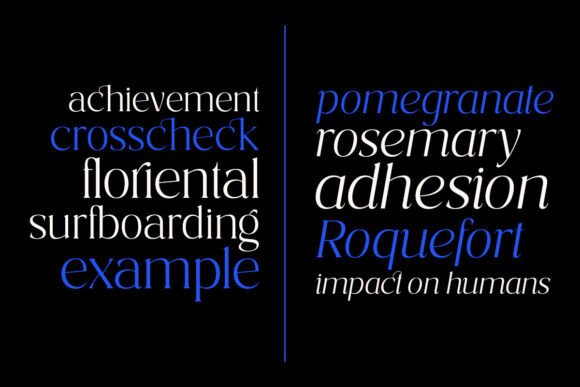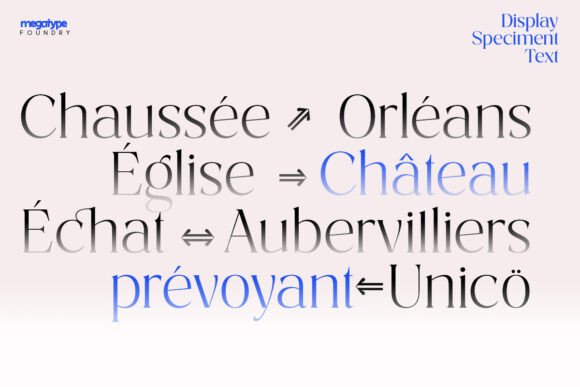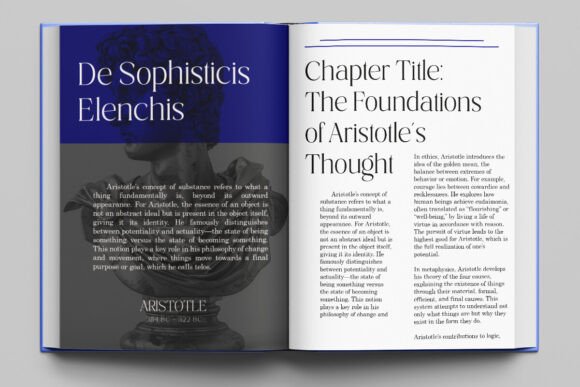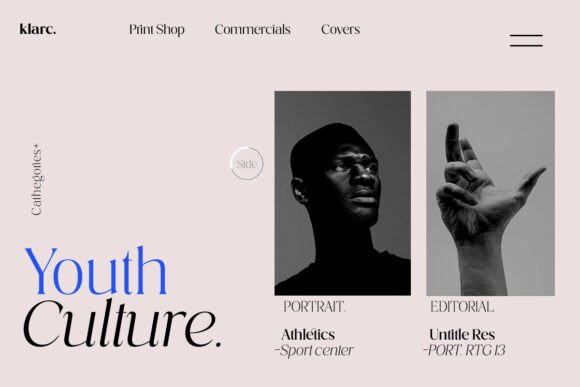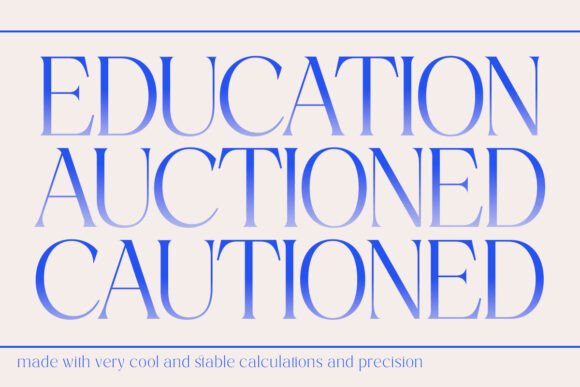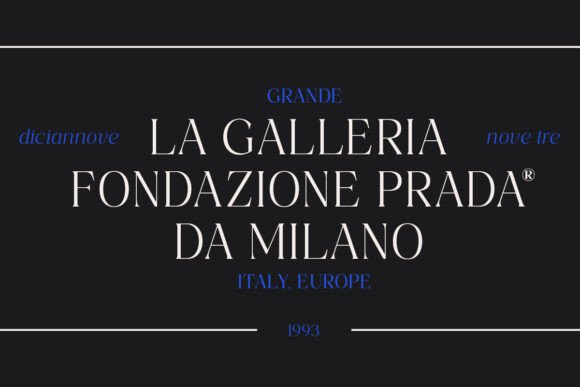
Introduction to Costaline Light Font
Costaline Light is a harmonious and stylish contemporary serif typeface with a classic feel.
Including vertical and italic to make it easy for designers to explore and refine beautiful designs, revealing many visual nuances and hidden secrets Costaline Light is a perfect choice for your various design projects such as editorial design, headlines, branding projects, Logo design, packaging, magazine titles, advertisements, short or long texts, web design and more.